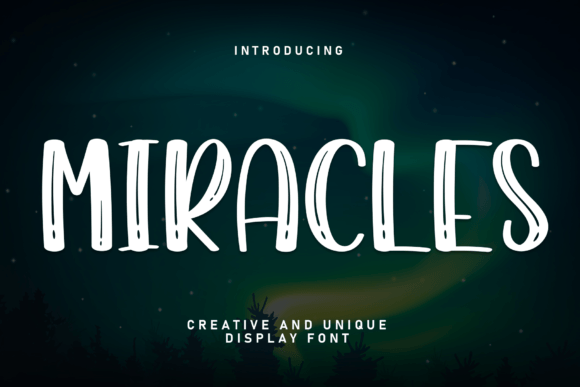
Introducing Miracles Font, the ultimate font for tattoo design enthusiasts seeking to elevate their creative projects! Crafted with love by the talented Roronoa Zoro.S.P.D, this font is truly miraculous.
As a display font, Miracles Font brings a touch of elegance and timelessness to any design. Its captivating and unique letterforms will instantly grab attention and breathe life into your logos, branding, and quotes.
What sets Miracles Font apart is its ability to evoke emotions. With each stroke, it exudes a sense of power, passion, and mystique, making it the perfect choice for those who want to make a bold statement.
Imagine your tattoo design adorned with Miracles Font. The intricate details and beautiful curves will transform your body art into a masterpiece, leaving an indelible mark on both your skin and your soul.
But Miracles Font is not limited to tattoos alone. It possesses the versatility to enhance any creative project. Whether you're designing a poster, flyer, or website, this font will add a touch of sophistication and allure.
Furthermore, Miracles Font empowers you to unleash your creativity. Its captivating aura inspires you to think outside the box, enabling you to create designs that captivate and resonate with your audience.